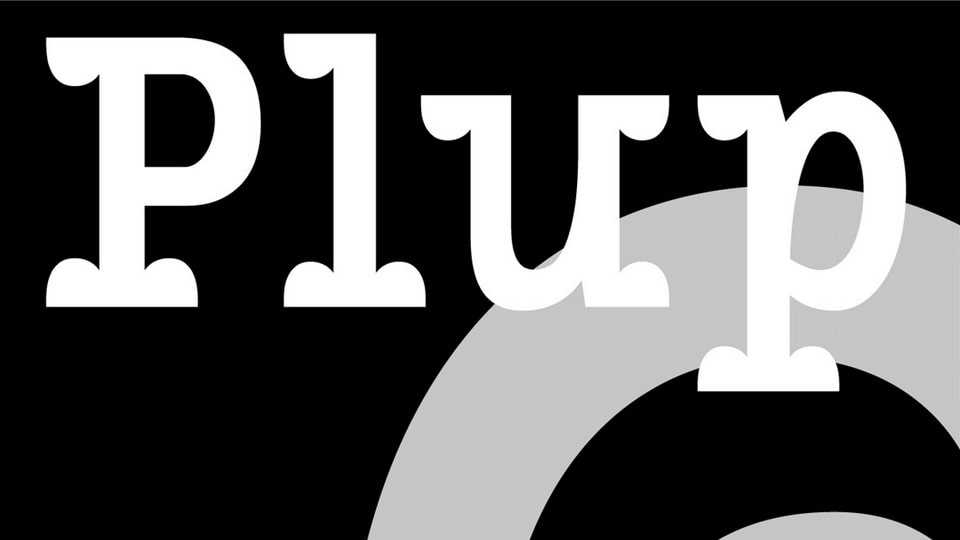
Download Plup font, a cheerful block serif typeface inspired by the Disney character Pluto, it is slightly puffy and wrinkled. Flexible and soft forms appear in the letters and signs of the Plup font.